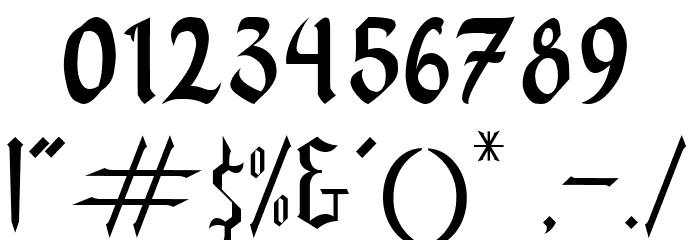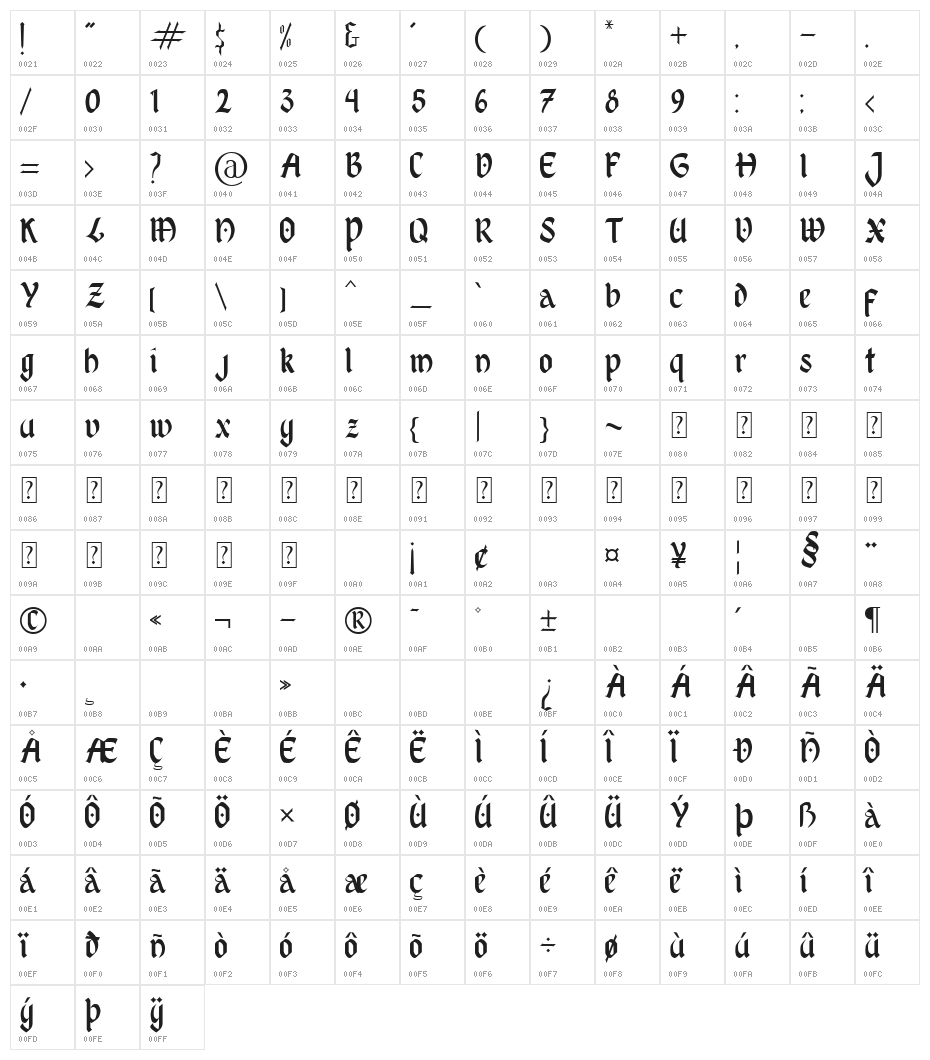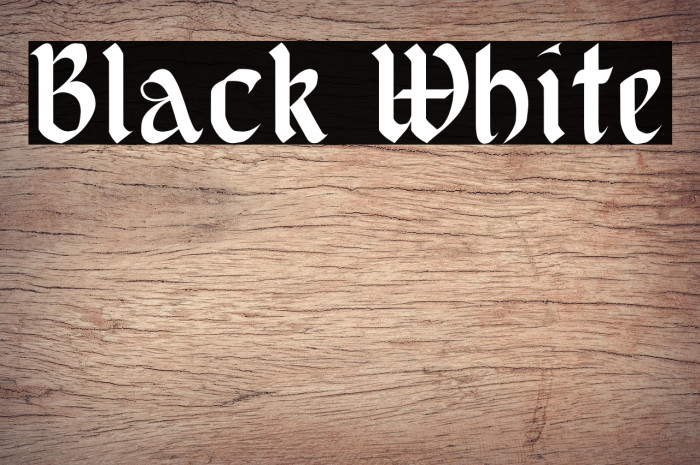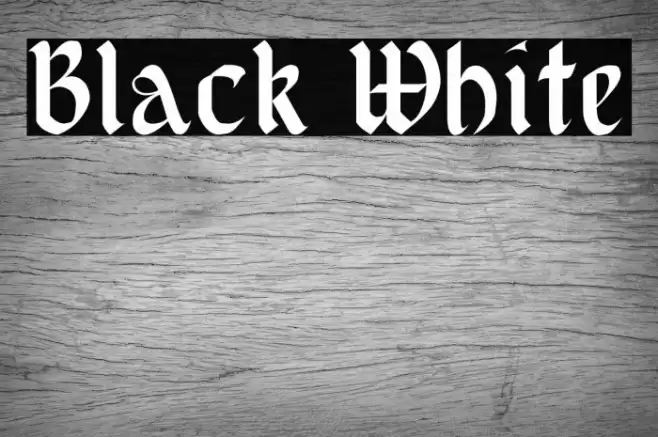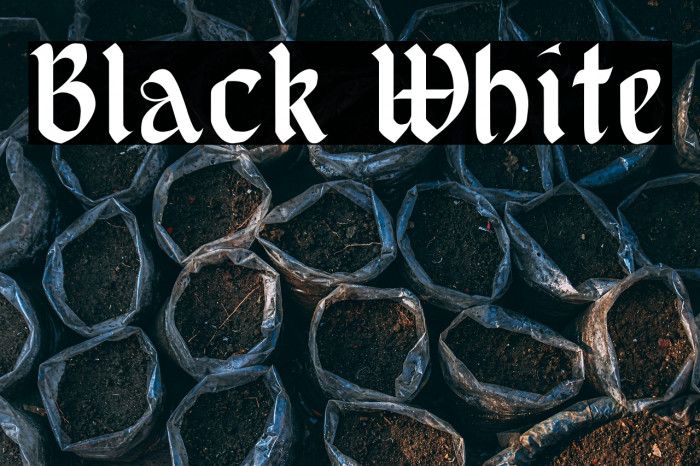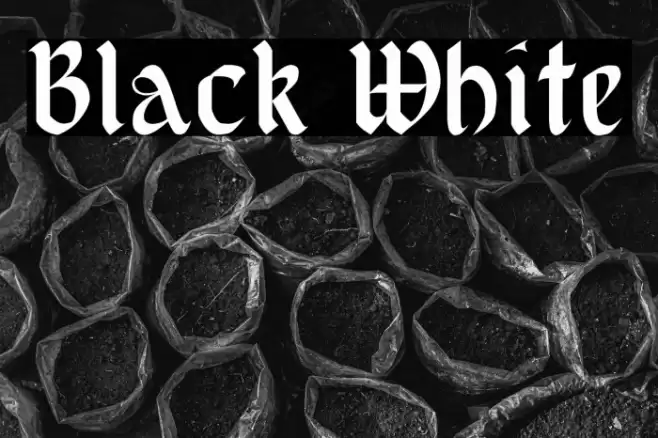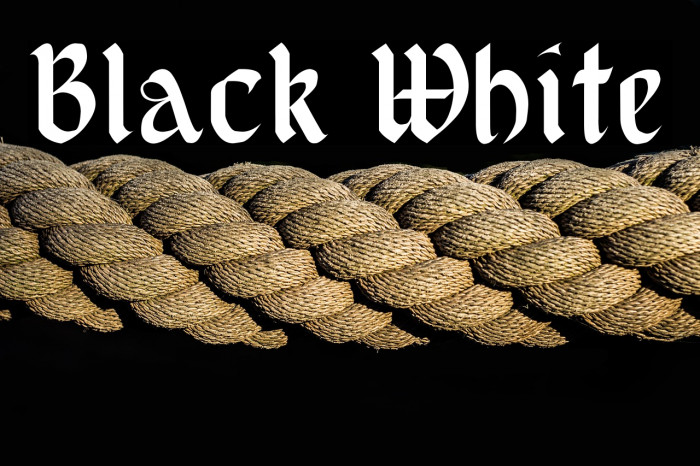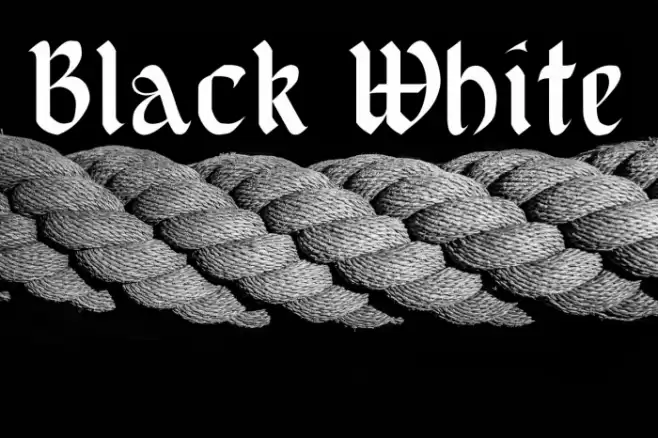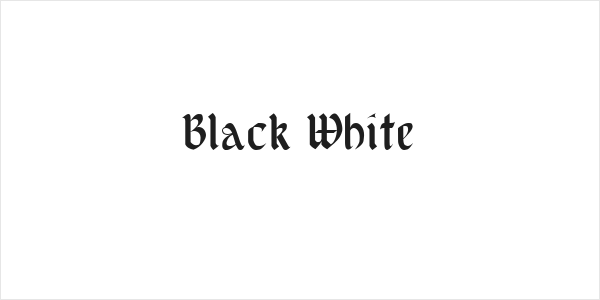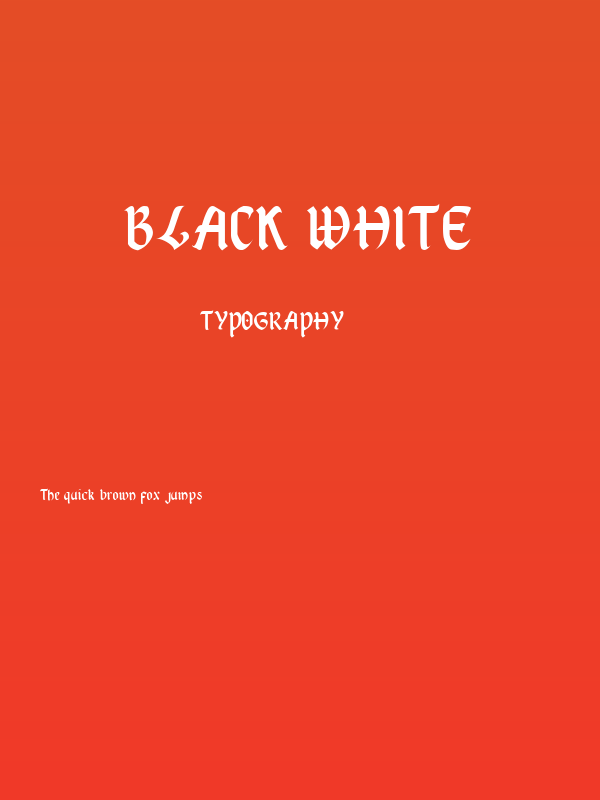
Black White Font
Black White Description
This font features a classic blackletter style, characterized by its ornate and intricate letterforms. The uppercase letters exhibit sharp, angular strokes with a medieval flair, while the lowercase letters maintain a consistent style with slightly more rounded edges. The numerals are bold and follow the same decorative theme, making them stand out. Special characters are designed with unique flourishes, adding to the overall aesthetic. This font is reminiscent of traditional calligraphy, often seen in historical documents and signage.
| Proposed Projects | Ideal for projects requiring a historical or medieval touch, such as event invitations, posters, or branding for vintage-themed products. |